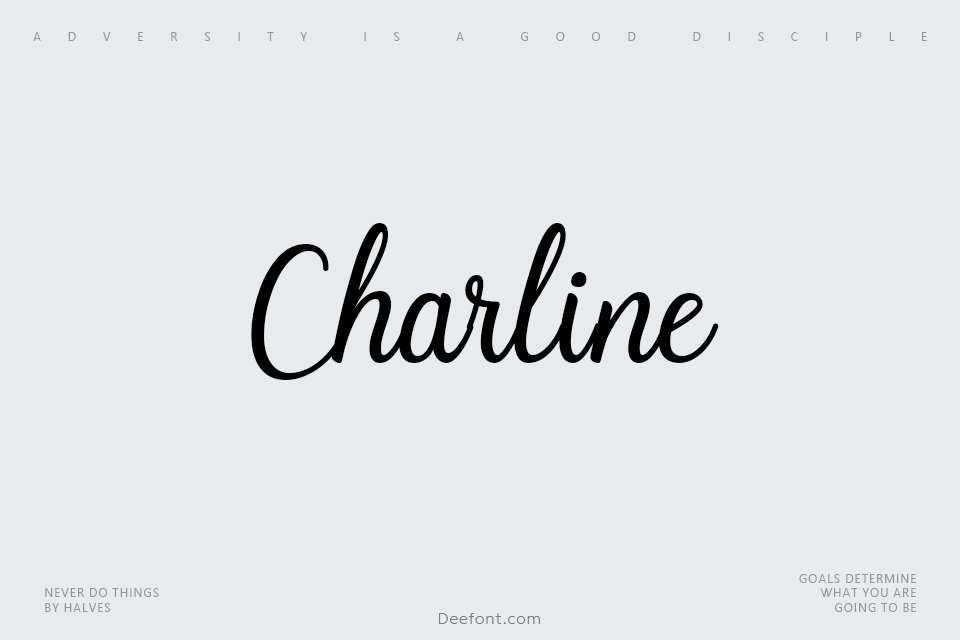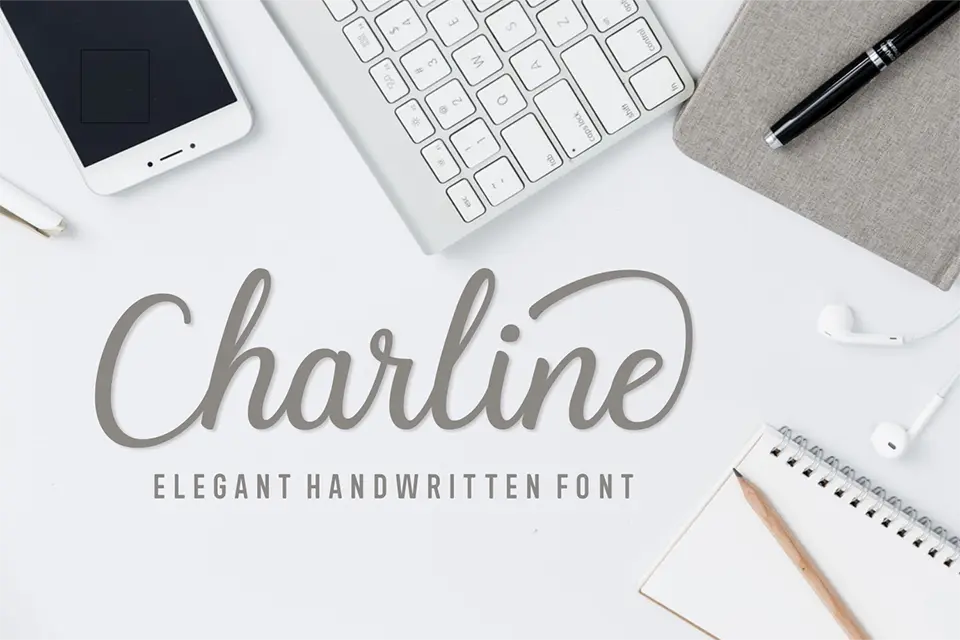
Charline Font
Charline is an elegant and refined calligraphy script font that brings sophistication and grace to any design project. This classical typeface features beautiful flowing strokes and extensive swashes, making it ideal for wedding invitations, logos, branding, and elegant typography. With support for multiple languages and comprehensive glyph coverage, Charline combines artistic beauty with practical versatility, perfect for designers seeking to add a touch of refined elegance to their creative work.